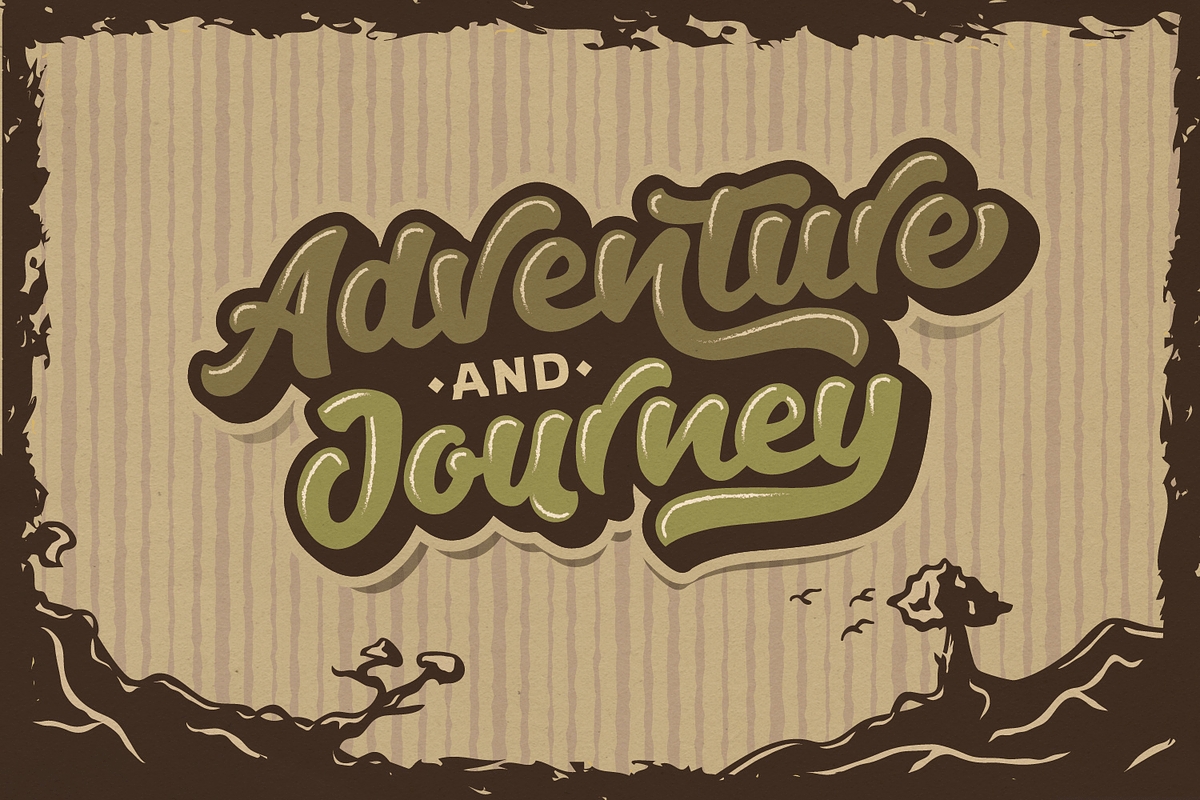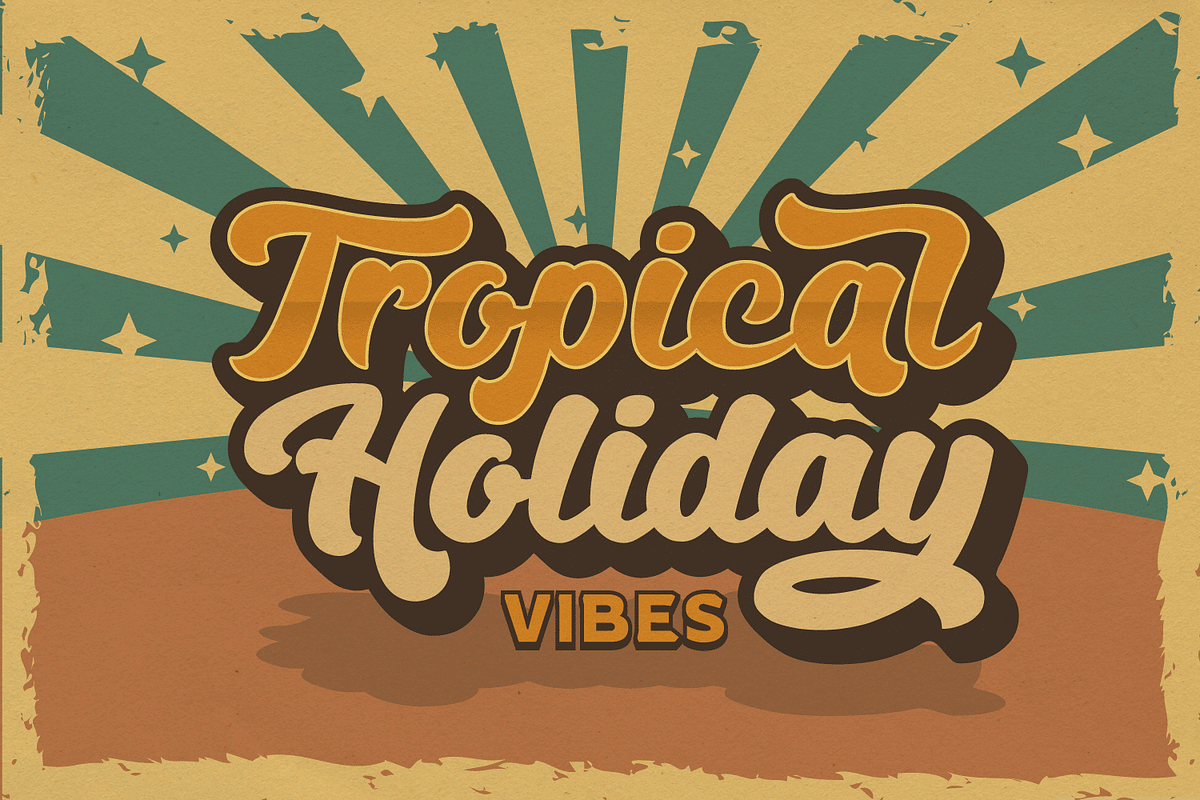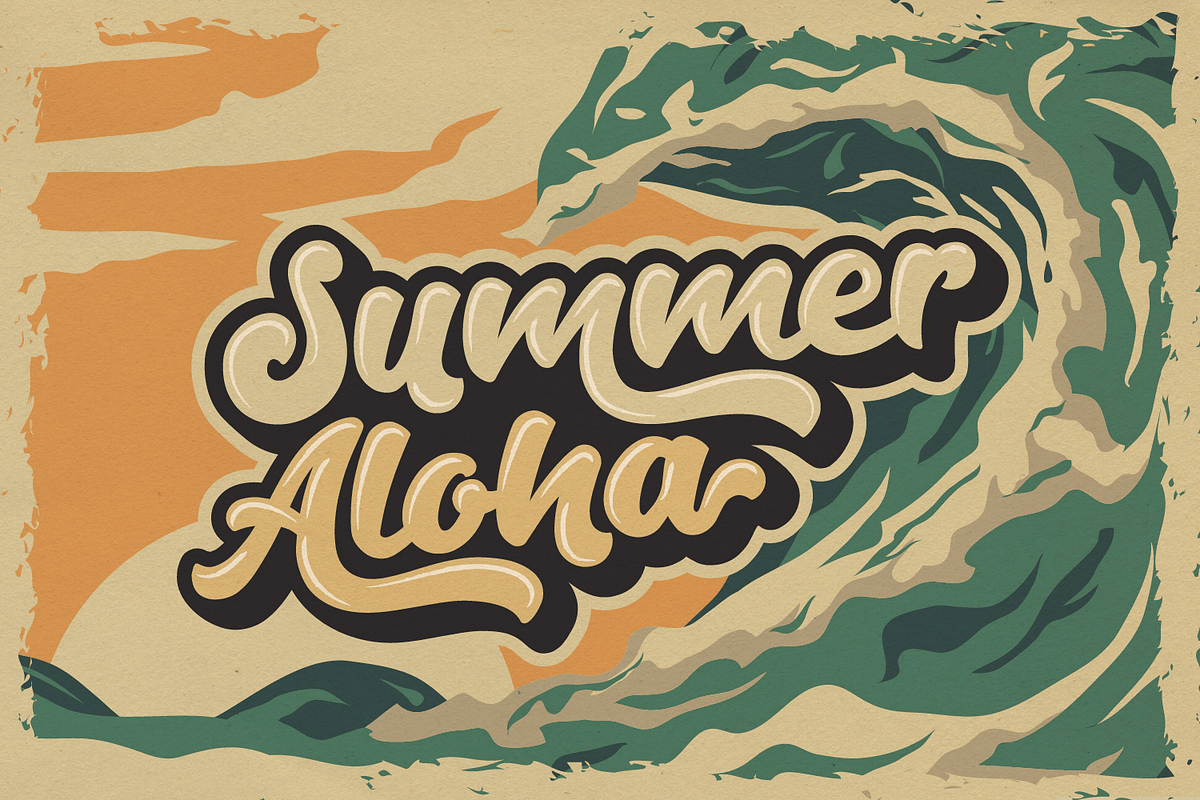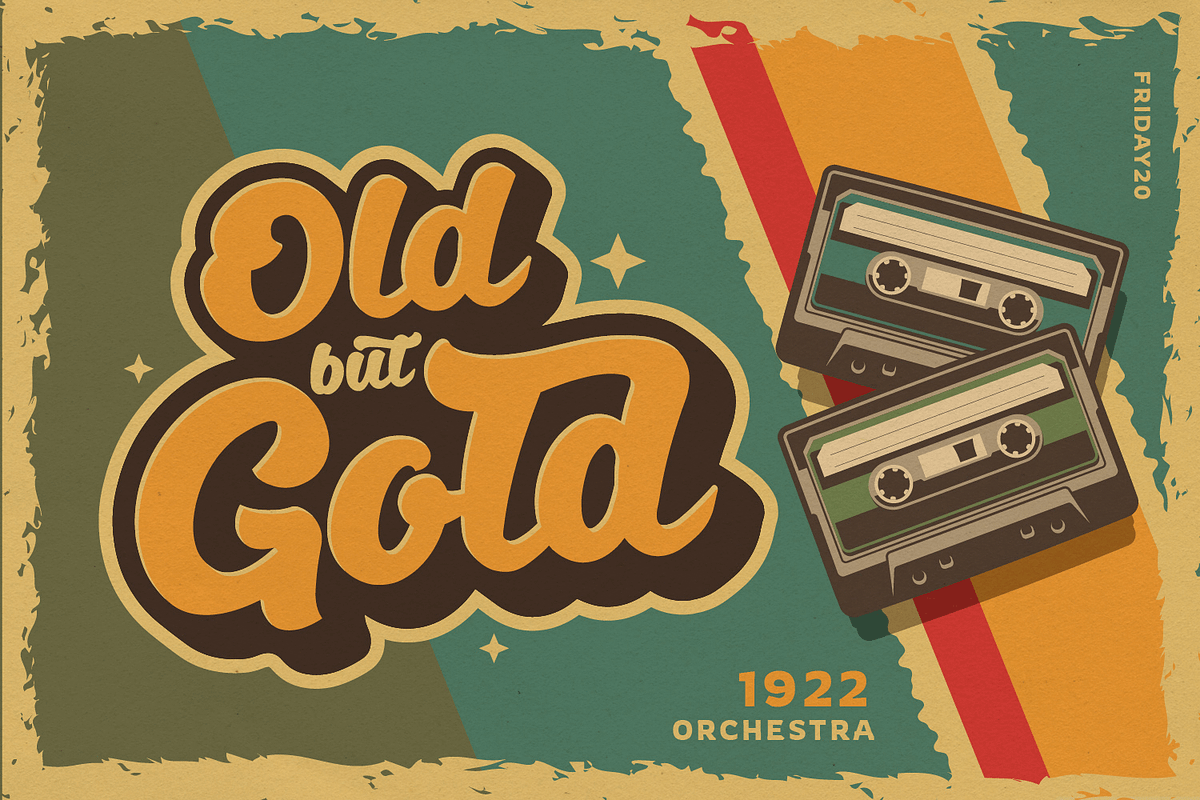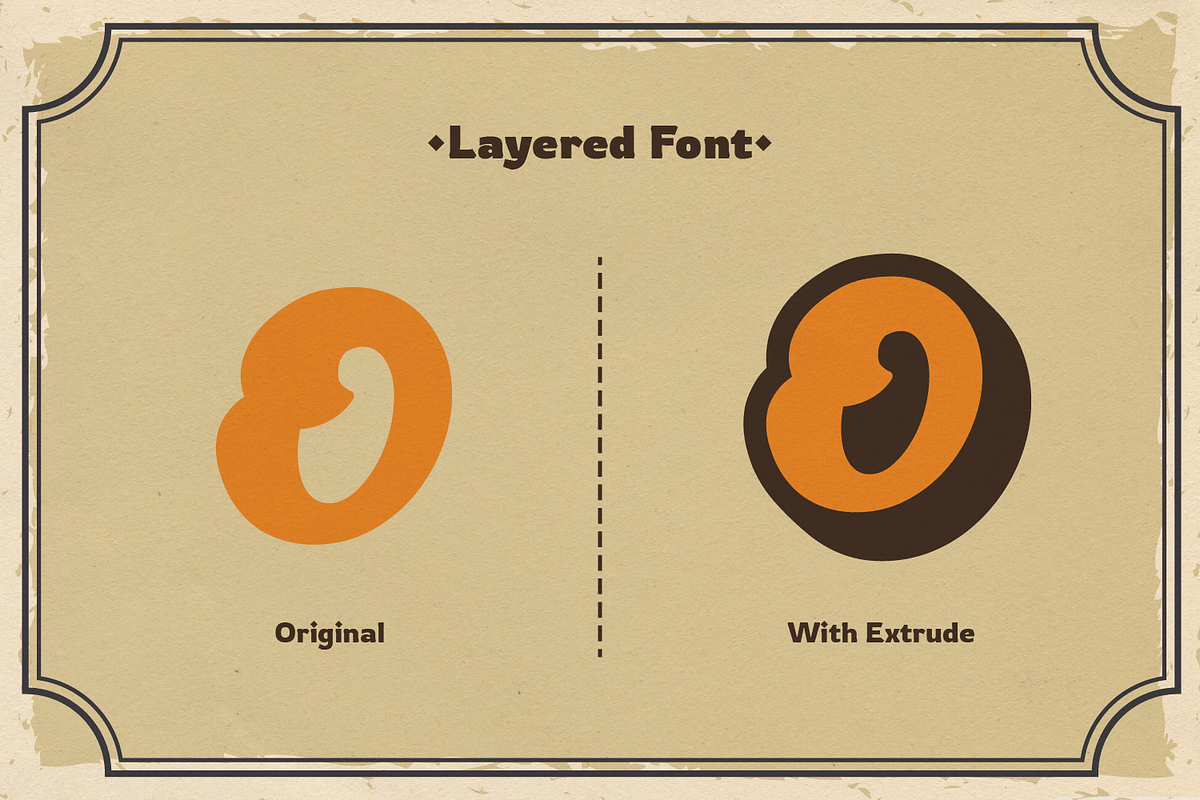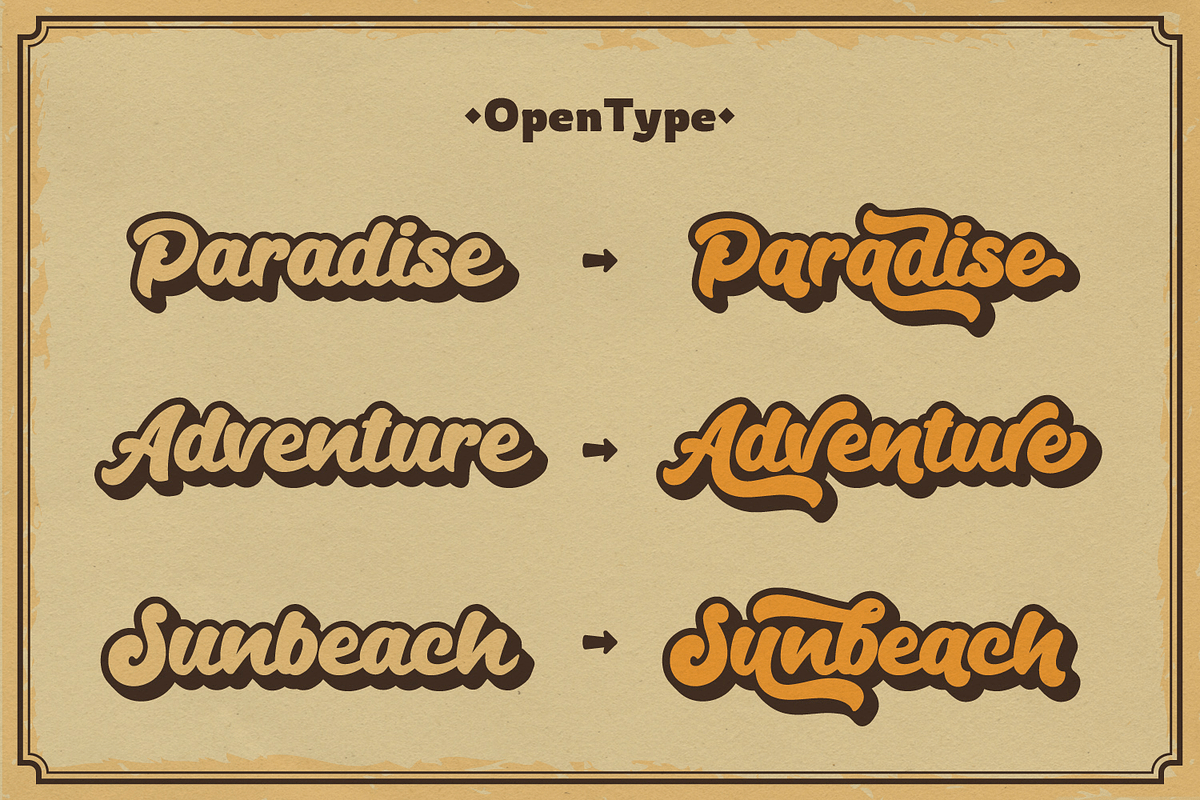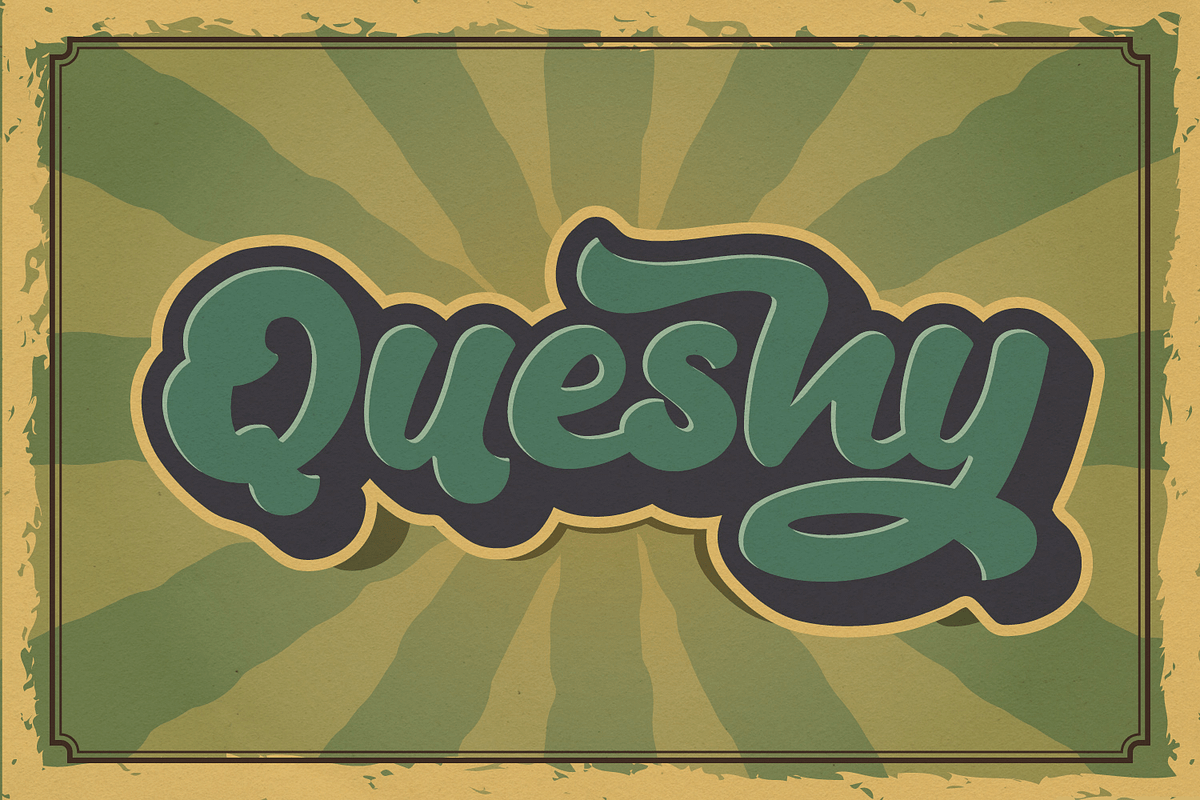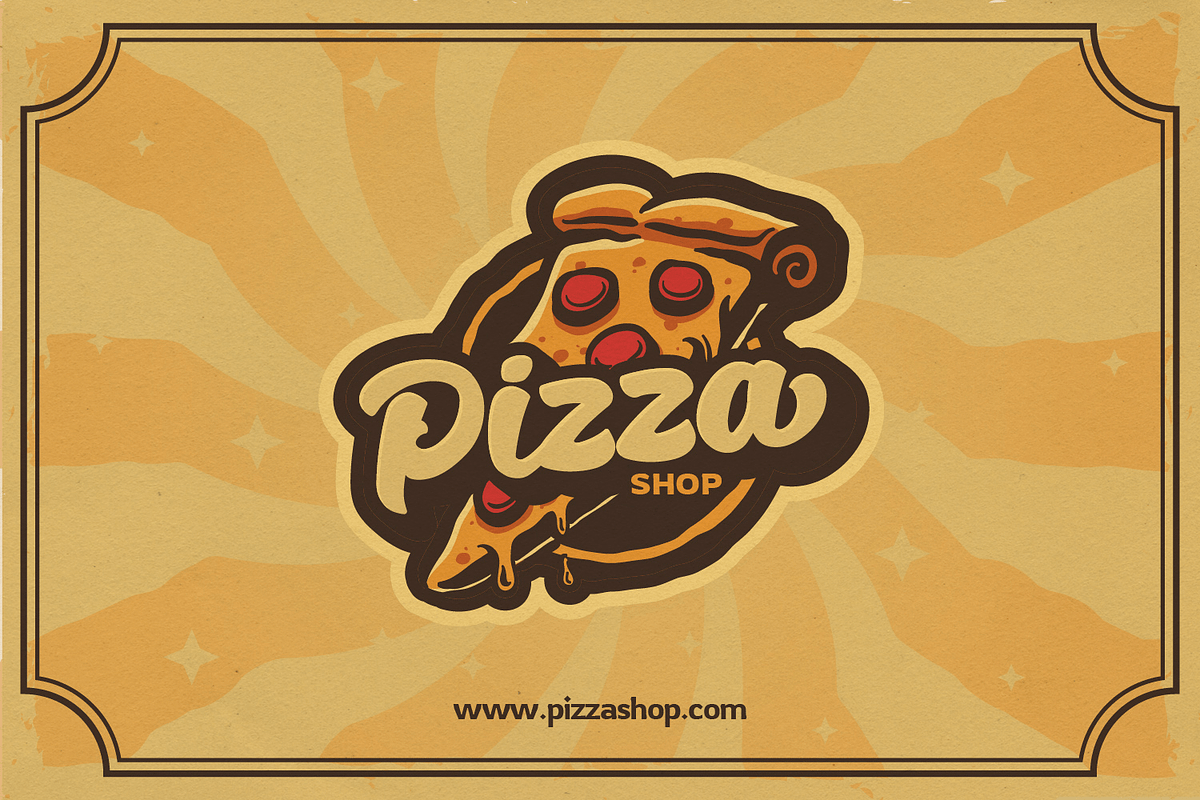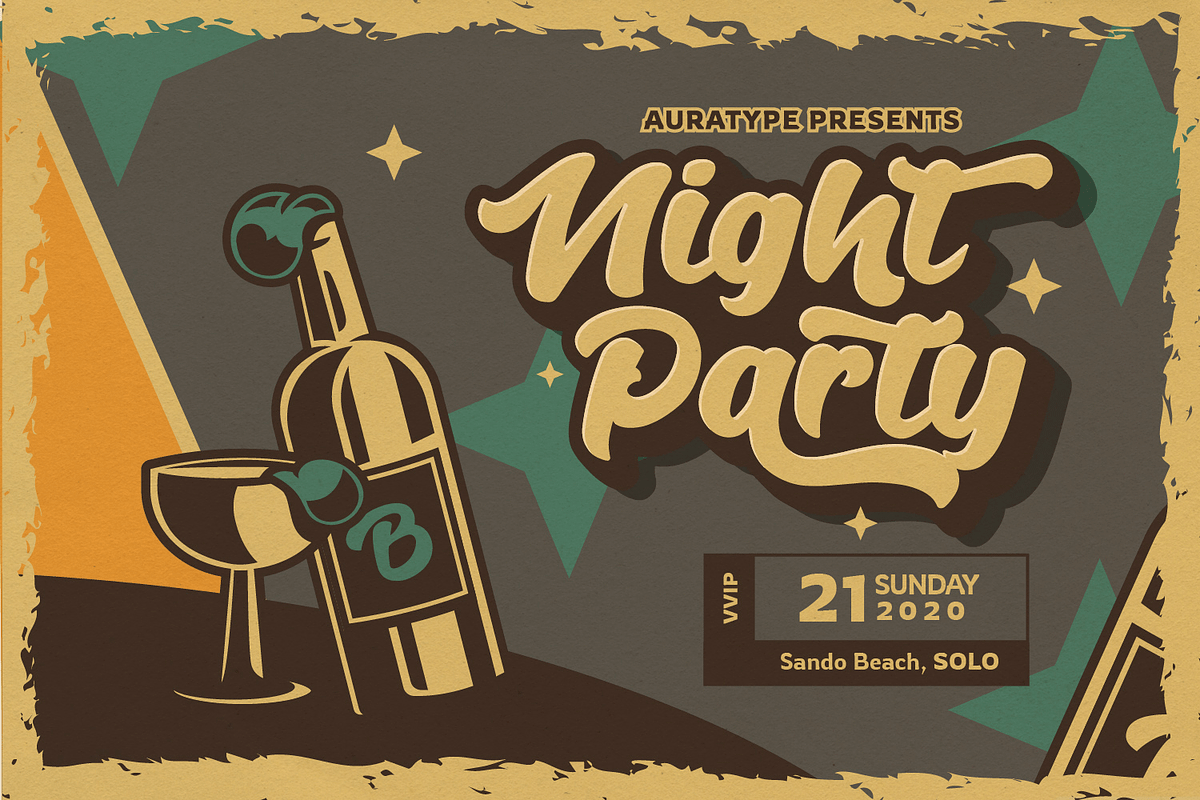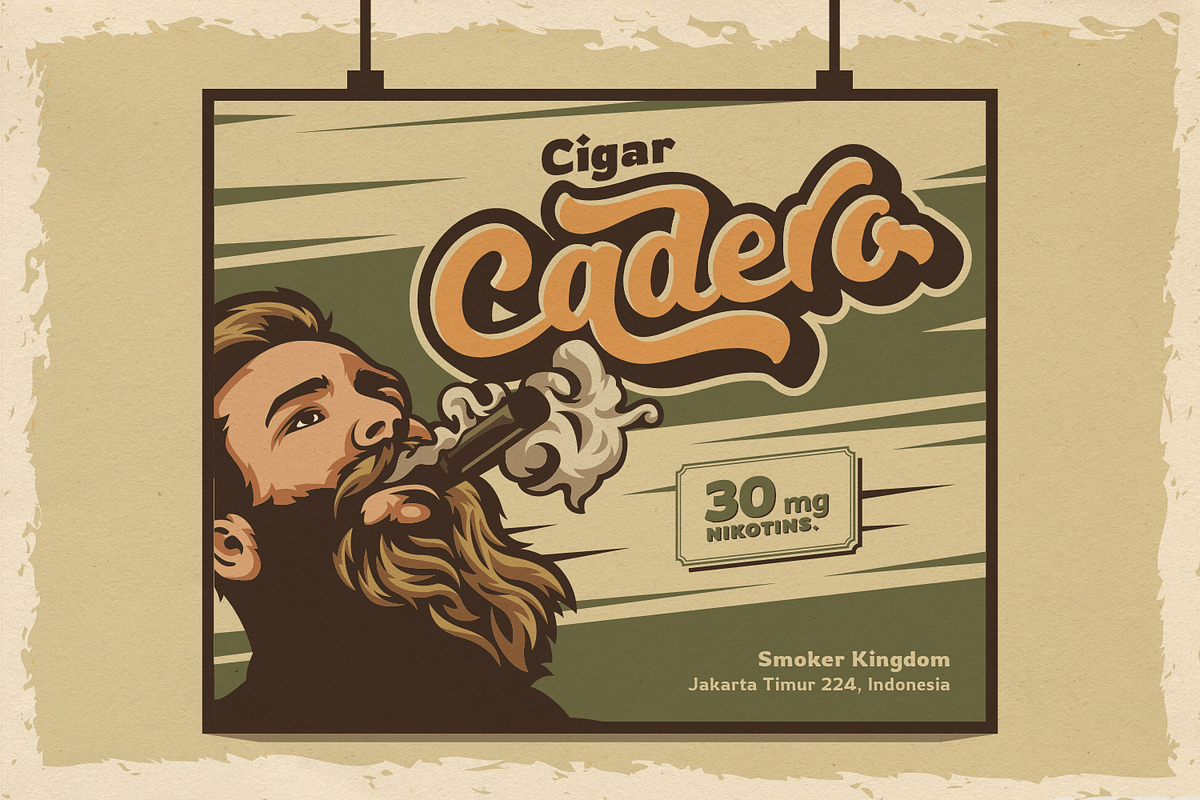
Andala - Groovy Retro Font
Hi Folks! Andala has inspirated from retro style and funky designs like signs and old poster. This font comes with an extra extrude to make the font look more retro/unique and save your time on making it. Font has an opentype features that allow you to modify it as you like as needed. Andala perfect for poster, logo, book covers, tshirt designs, packaging and more.
- Opentype Features